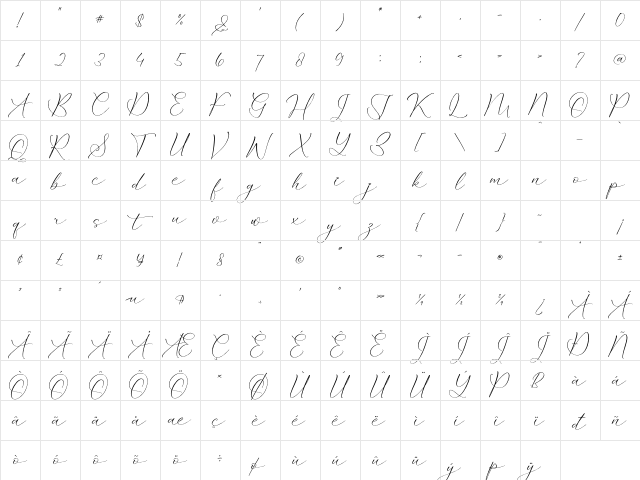
Klasynta Gelisha Regular Free Font
Klasynta Gelisha Regular
Foundry: Storytype Studio
Designer: Heru Utama Putra
Design Context for Klasynta Gelisha
Klasynta Gelisha is a composed and adaptable typeface that performs quietly and consistently across a wide range of design contexts.